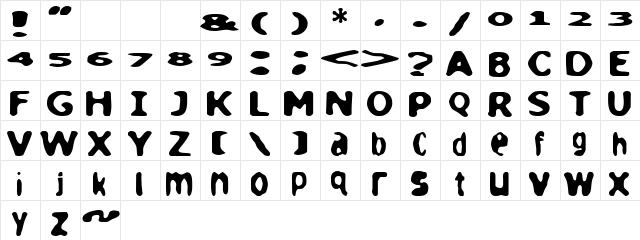
loaf Regular Free Font
loaf Regular
Design Context for loaf
loaf is a composed and adaptable typeface that performs quietly and consistently across a wide range of design contexts.